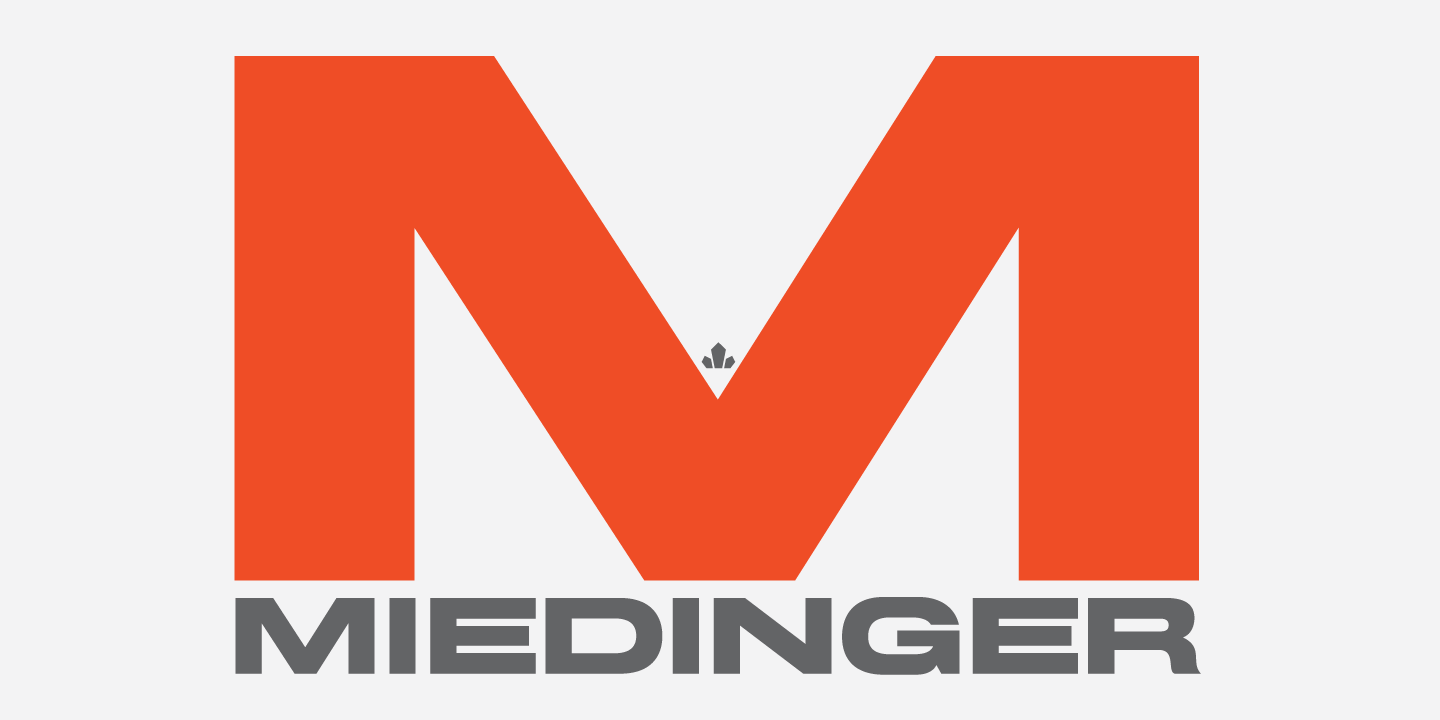
Miedinger Font is ideal for Swiss design studios, modernist architectural firms, minimalist corporate branding, international signage systems, contemporary art museums, clean technology companies, progressive design agencies, and sophisticated neutral communications.
What makes Miedinger Font truly exciting is its masterful embodiment of Swiss design philosophy and typographic perfection through impeccably balanced letterforms that represent the pinnacle of neutral, functional typography and timeless modernist principles. This exceptional typeface features pristine geometric characteristics with mathematically precise proportions that instantly convey clarity, objectivity, and design sophistication, making it the perfect choice for organizations that value typographic excellence, embrace international design standards, and communicate with audiences who appreciate the pure essence of modernist design philosophy.
The Miedinger Font family encompasses ultra-light, light, regular, medium, bold, and black weights, each available in upright and italic styles, along with condensed and extended variants that maintain perfect proportional harmony, providing designers with comprehensive tools for creating internationally-minded brand experiences and sophisticated neutral communications that transcend cultural boundaries.
Design agencies and international corporations will discover that Miedinger Font Free Download delivers the typographic authority and modernist credibility needed to communicate effectively across diverse global markets and sophisticated design communities. This versatile typeface excels in both complex information design and bold branding applications, maintaining its neutral character while ensuring optimal performance across all international contexts.
The font's precision-engineered construction demonstrates unwavering commitment to Swiss typographic traditions, with scientifically optimized spacing and proportions that guarantee maximum clarity and functional excellence. From corporate headquarters to international airports, this modernist typeface maintains its neutral authority while providing the reliability needed for comprehensive global communications. International brands appreciate how this font effortlessly communicates precision, neutrality, and distinguished American appreciation for Swiss design excellence through superior modernist typography.